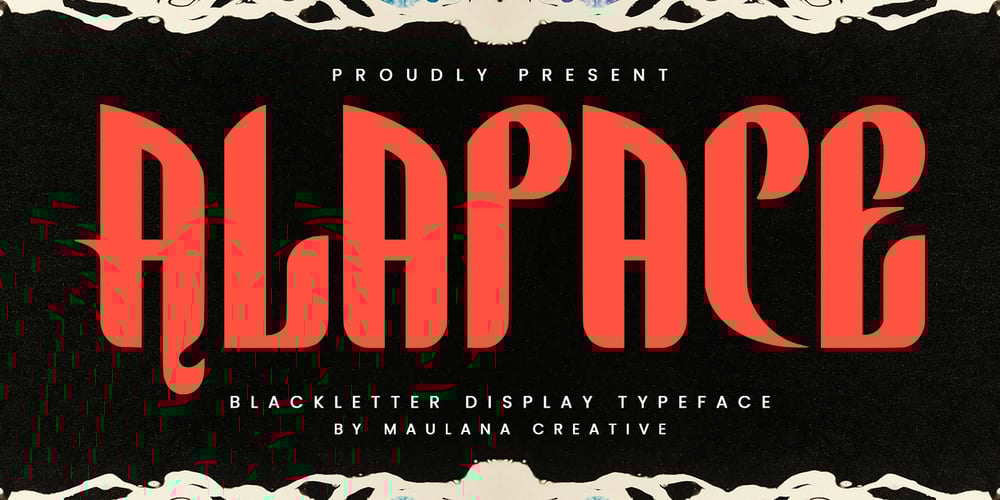
MC Alapace Font Family was designed by Gilang Maulana and published by Maulana Creative. MC Alapace contains 1 styles and family package options. Alapace blackletter display typeface. Heavy stroke, fun character with a bit of ligatures. To give you an extra creative work. Alapace blackletter display typeface support multilingual more than 100+ language. This font is good for logo design, Social media, Movie Titles, Books Titles, a short text even a long text letter and good for your secondary text font with script or serif. Make a stunning work with Alapace blackletter display typeface. Cheers,Maulana Creative